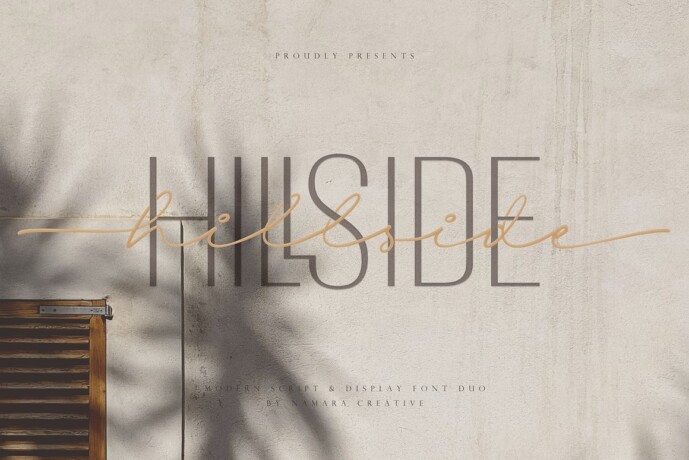
Hillside Font
Designer: namaracreativestudio
Hillside Modern Font Duo. A perfect blend of simplicity and elegance! This font duo features a clean and minimalist display font, which is ideal for creating a modern look. Additionally, the cursive script font style exudes sophistication and elegance, making it a great choice for personalized and decorative designs. The Sans & Script font duo is versatile and can be used for various design projects such as logos, branding, invitations, packaging, and more.
Hillside
Hillside Script